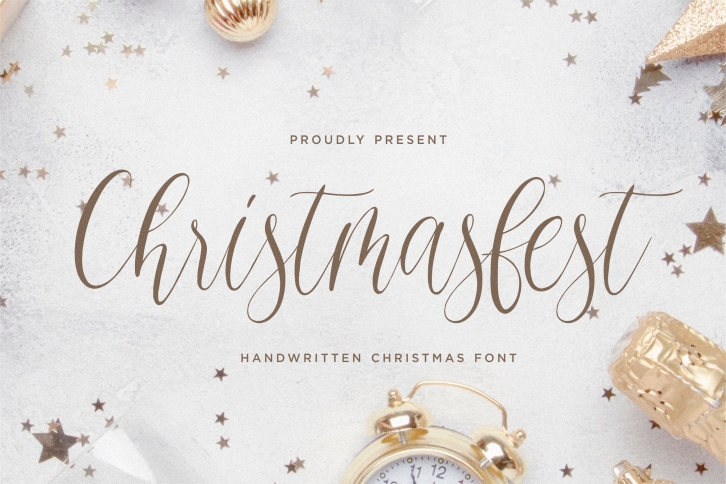
Christmasfest is a beautiful font that was designed by Qwrtype Foundry. It's a great choice for designers and creatives who need such a font. It was released on August 24, 2022 and the file size is 3.18 MB. Christmasfest may give a more youthful, expressive and casual look to your project. It is a very beautiful, refined, elegant, and high-quality font.